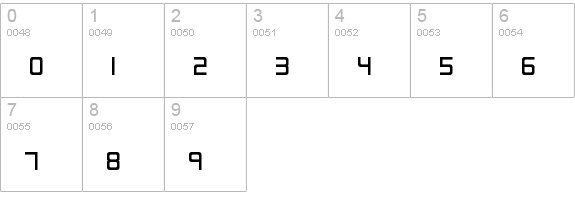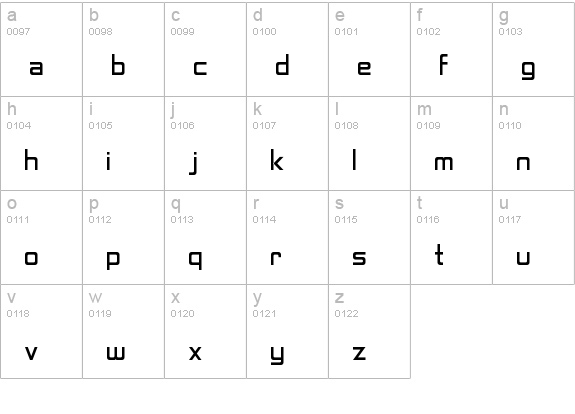
Neon Nanoborg font is a futuristic and dynamic typeface that exudes a high-tech and cyberpunk vibe. Its sleek design and sharp edges give it a modern and edgy look, making it perfect for projects that require a cutting-edge aesthetic. This font is versatile and can be used for various design purposes, from branding to digital art. The Neon Nanoborg font is available for free download at FontsMarket.com, making it easily accessible for designers and creatives looking to add a touch of neon flair to their projects. Get your hands on this electrifying font today and take your designs to the next level!